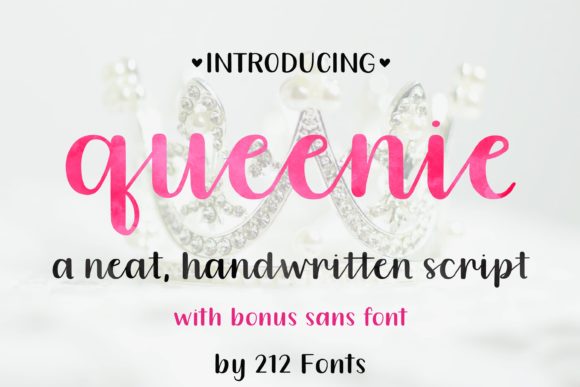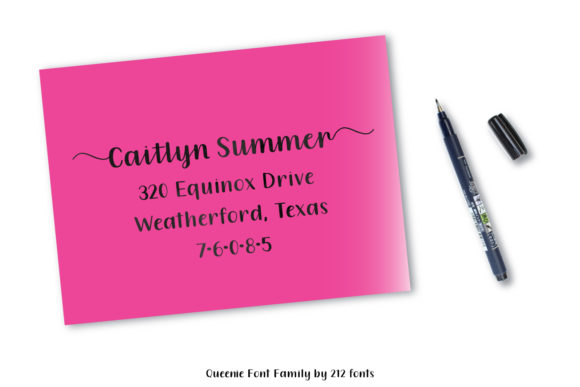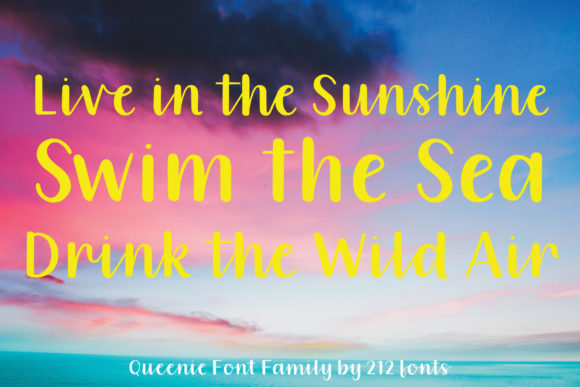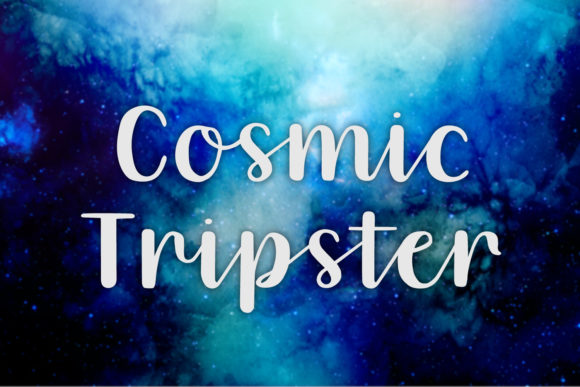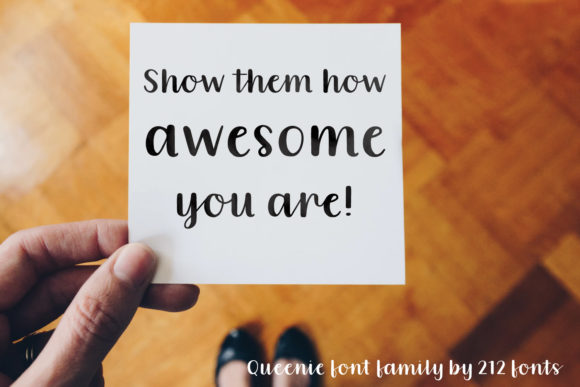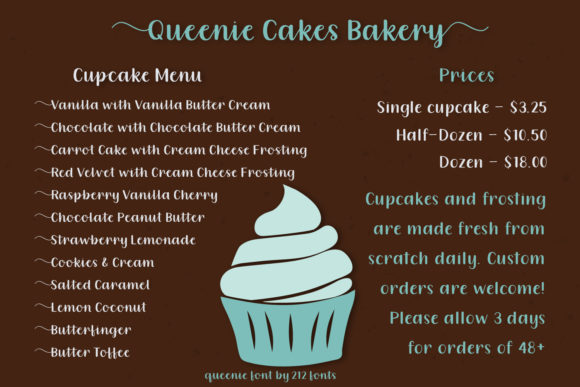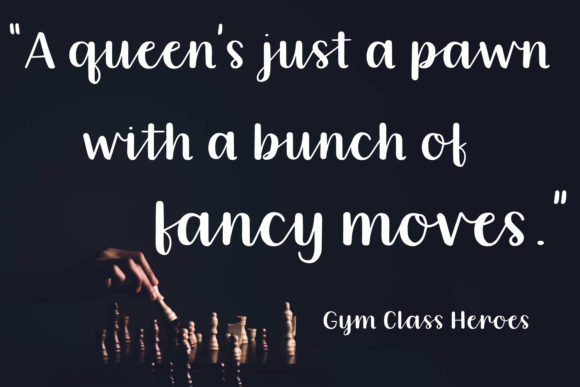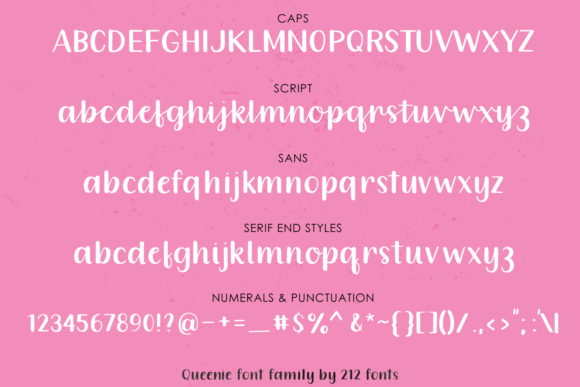
Queenie Font
About Queenie Font
Queenie is a clean, handwritten font that includes a script and sans version and swashes that can be applied to the beginning and ends of all letters. It will surely elevate any adorable design ideas!